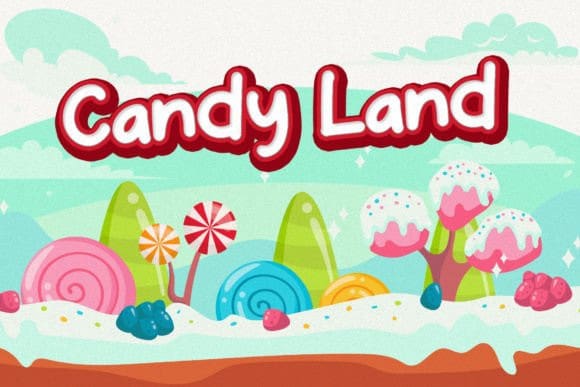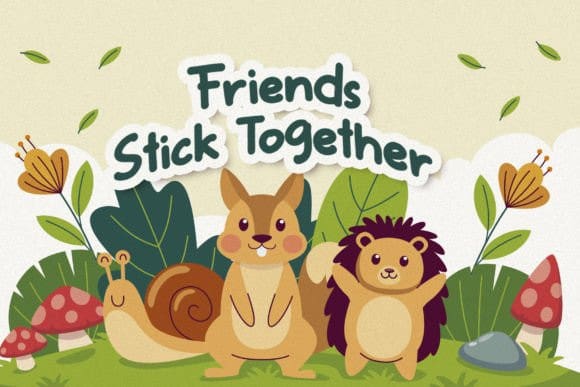
Momain Kidz Font
Momain Kidz Font is a delightful and enchanting children’s typeface that captures the imagination and playfulness of young minds. Its rounded and bubbly letterforms exude a sense of innocence and joy, instantly transporting us to a world of imagination and wonder. With its slightly irregular shapes and friendly curves, MomainKidz evokes the spontaneity and creativity of a child’s handwriting, making it perfect for children’s books, educational materials, and playful designs. The vibrant and cheerful colors of Momain Kidz bring a sense of fun and excitement to any project, while its legibility ensures that young readers can easily engage with the text.
Momain Kidz is a whimsical and inviting typeface that sparks curiosity and invites young hearts to embark on exciting adventures in the world of reading and learning.